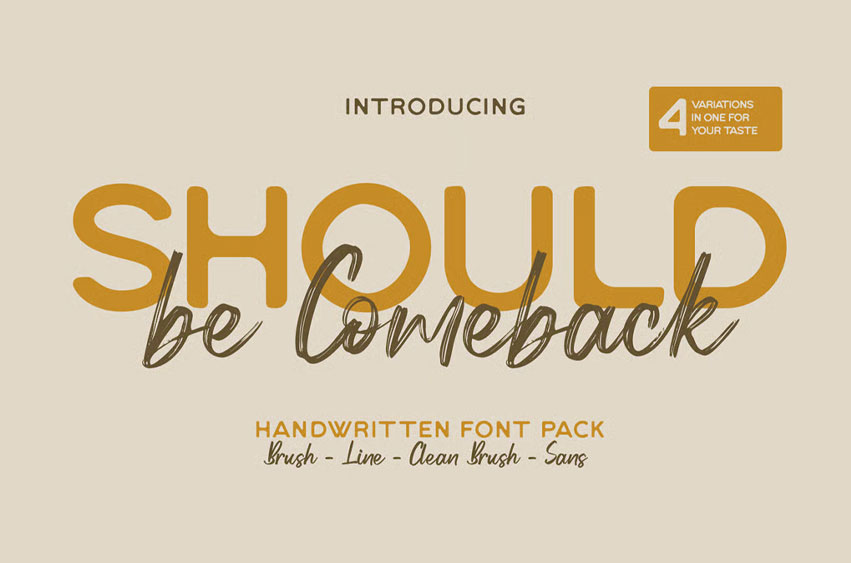
Should be Comeback Font
Should be Comeback Font is a stylish handwritten font pack that combines modern elegance with natural hand-lettered charm. Featuring a balanced blend between expressive brush strokes and clean sans forms, this font family is perfect for adding personality and sophistication to your creative projects.
• 4 Fonts in One Family:
• Sans: Clean, bold, and modern – perfect for headlines or titles.
• Brush Script: Natural brush texture with expressive strokes.
• Clean Brush: A smoother version of the brush style for an elegant look.
• Line Script: Light and minimal line version for soft, subtle designs.
Multilingual Support :
• Covers a wide range of international characters for global usability.
Versatile & Creative :
• Ideal for logos, invitations, branding, posters, packaging, and social media designs.
Why You’ll Love It :
• Perfect Font Pairing: The sans and script combination creates natural harmony and balance in your layouts.
• Authentic Handwritten Feel: Adds a personal, warm, and artistic touch to any design.
• Professional & Modern Look: Suitable for designers, brand owners, and creatives who want to stand out with style.
• Premium Quality: Carefully crafted letterforms for perfect legibility and visual beauty at any size.